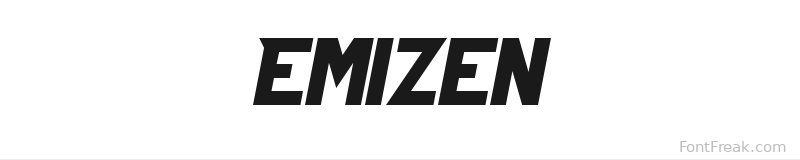
Emizen
Emizen is a striking display font designed by Kong Font, and it falls under the category of sans-serif typefaces. This font features a modern, geometric aesthetic with a balanced stroke weight that conveys a sense of stability and clarity. The letters exhibit a clean and open spacing, enhancing readability while maintaining a contemporary flair. Decorative elements are minimal, allowing the font to shine through in various applications without overwhelming the design.
The Emizen font free download makes it an excellent choice for a range of creative projects. Its unique style lends itself beautifully to wedding invitations, where the clean lines can evoke elegance and sophistication. It is also ideal for movie posters, where bold typography can capture audience attention and convey thematic elements with ease. Restaurants can utilize Emizen for menu designs, as its modern look can enhance the dining experience by providing a fresh and engaging presentation. Additionally, content creators will find Emizen suitable for social media graphics, ensuring that their visuals stand out in a crowded digital space.
Targeting graphic designers, small business owners, and content creators, Emizen serves as a versatile tool for anyone looking to enhance their visual communications. Its contemporary design caters to modern aesthetics while remaining user-friendly, making it accessible for various applications.
What truly sets Emizen apart is its ability to blend functionality with a distinctive character. The font’s modern vibe and versatility make it an essential addition to any designer's toolkit, ensuring that projects not only communicate effectively but also leave a lasting impression. Whether you're crafting an eye-catching headline or designing a polished piece, Emizen stands ready to elevate your work.